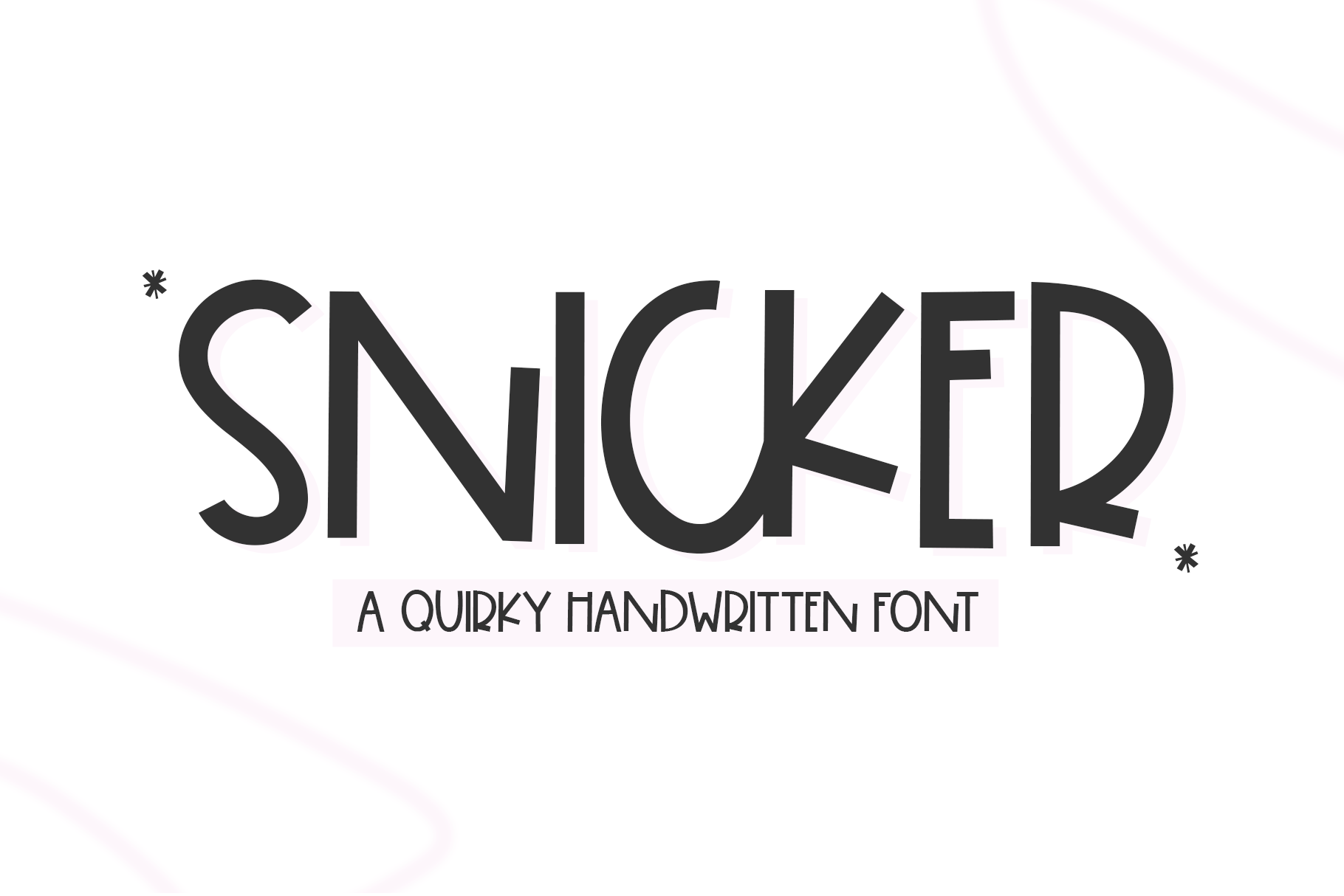
Snicker - A Bold Handwritten Font
Snicker is a bold handwritten font. The letters are super fun and unique!
This font is perfect for crafts, logos, shirts, svg files, cricut projects, teachers, prints, stickers, procreate and more!